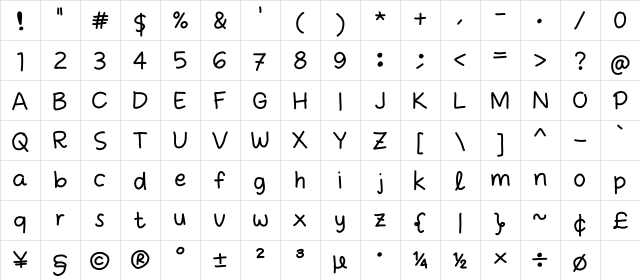
vania Medium
Design Context for vania
vania is a composed and adaptable typeface that performs quietly and consistently across a wide range of design contexts.